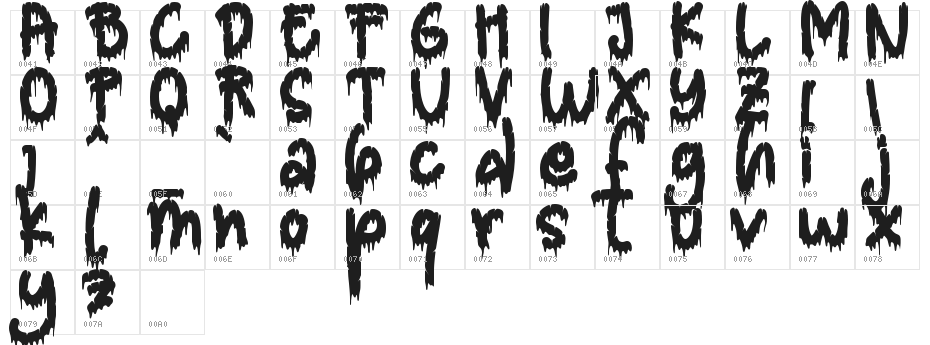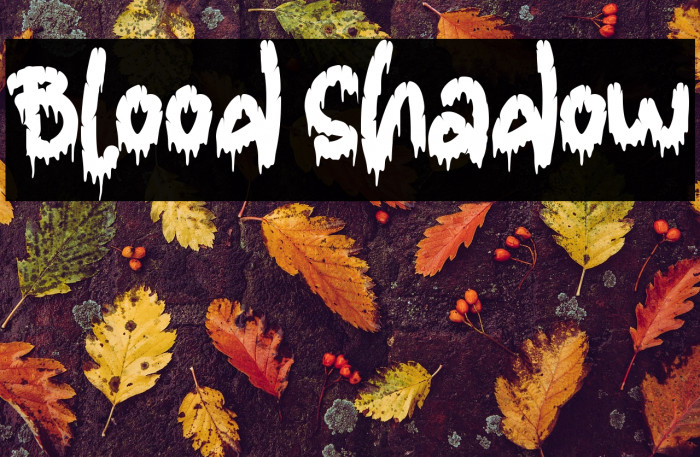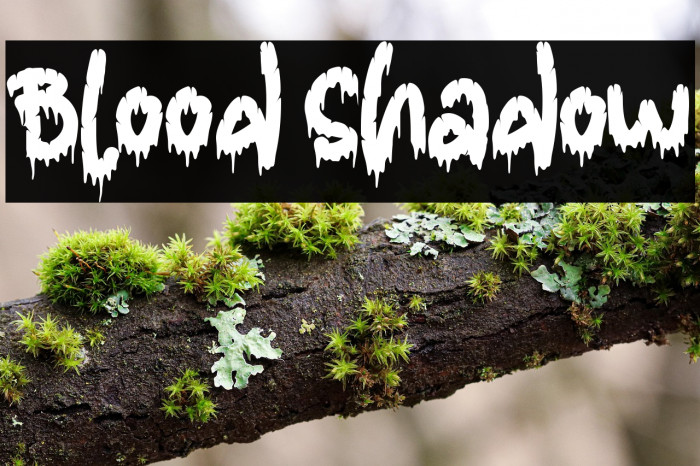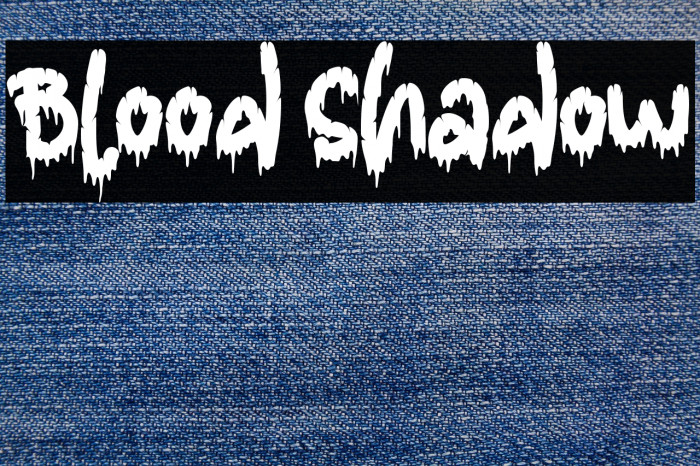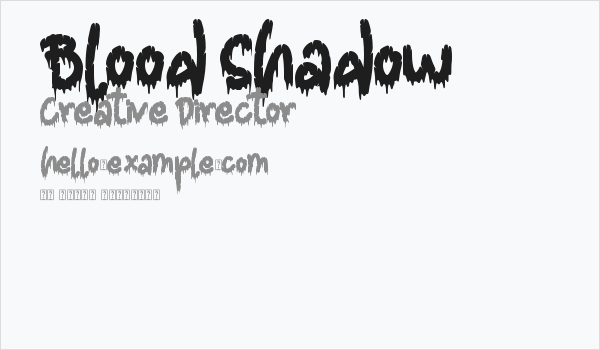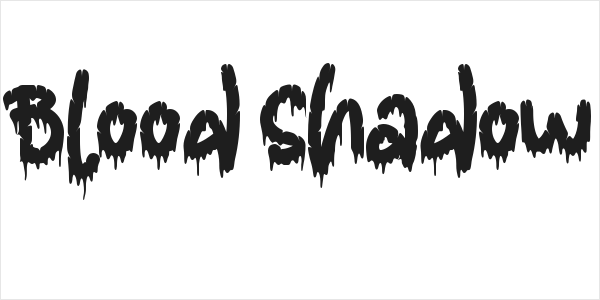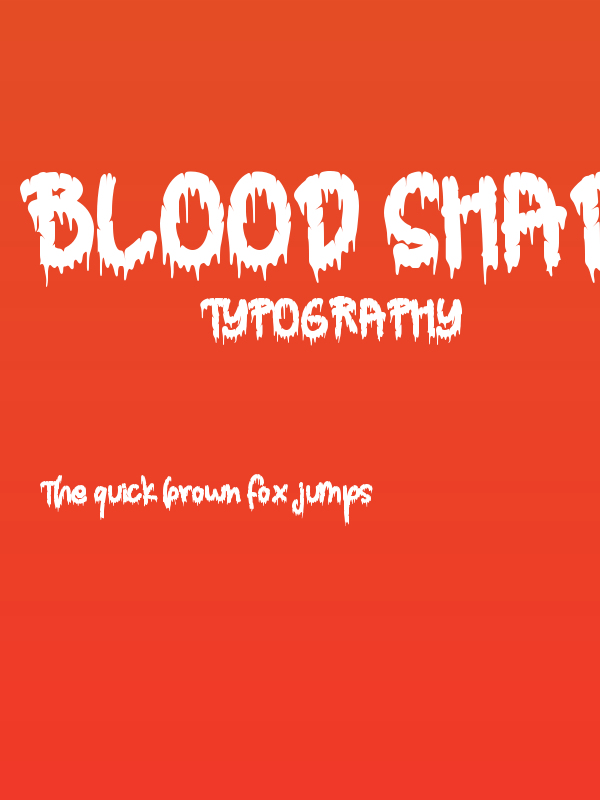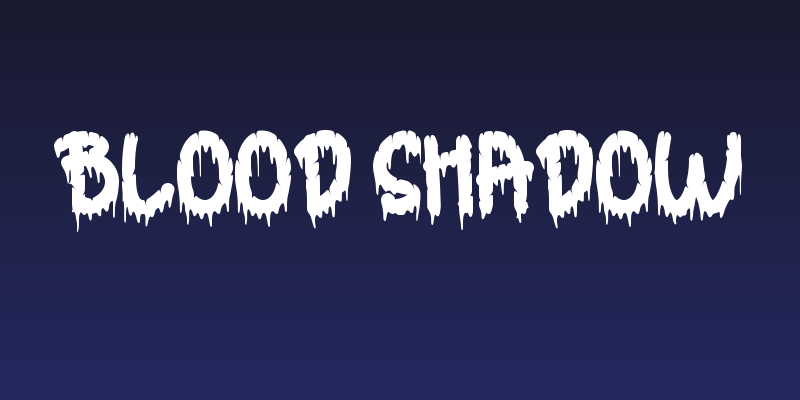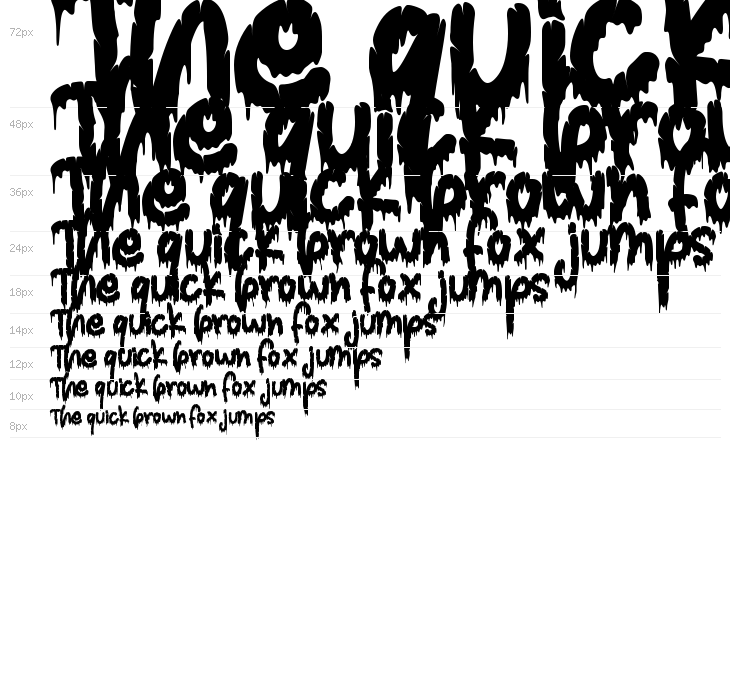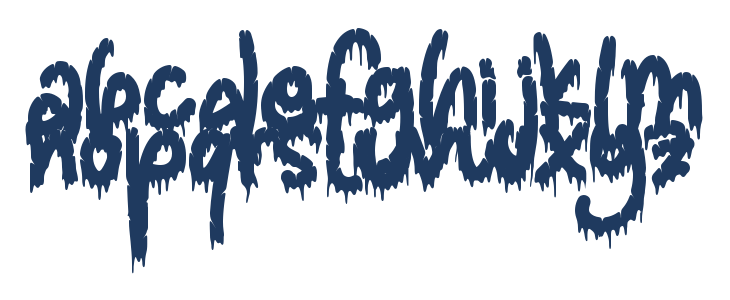
Blood Shadow Font
Blood Shadow Description
This font features a dramatic and eerie style, with letters that appear to be dripping or melting, reminiscent of horror or Halloween themes. The uppercase and lowercase characters maintain a consistent, bold appearance, with each letter uniquely crafted to enhance the unsettling effect. The font's design is highly decorative, making it ideal for creating a spooky atmosphere. The special characters, including symbols like $, ?, &, %, !, #, *, and =, follow the same dripping motif, ensuring a cohesive look across all text elements.
| Proposed Projects | Ideal for Halloween posters, horror movie titles, haunted house flyers, and themed party invitations. |